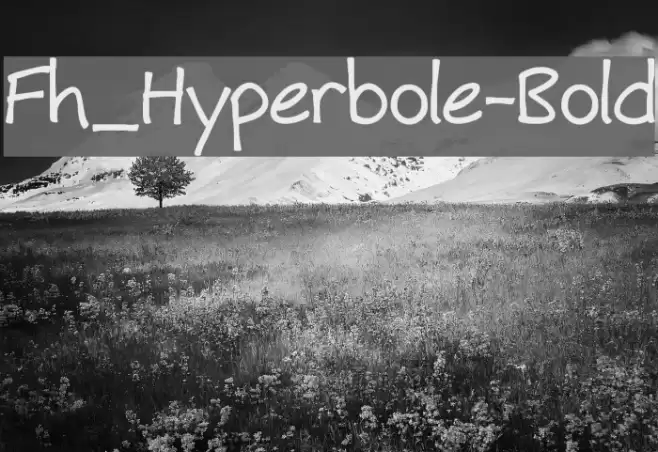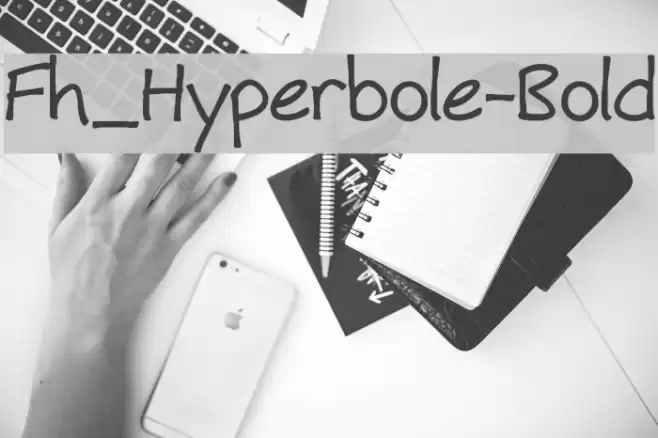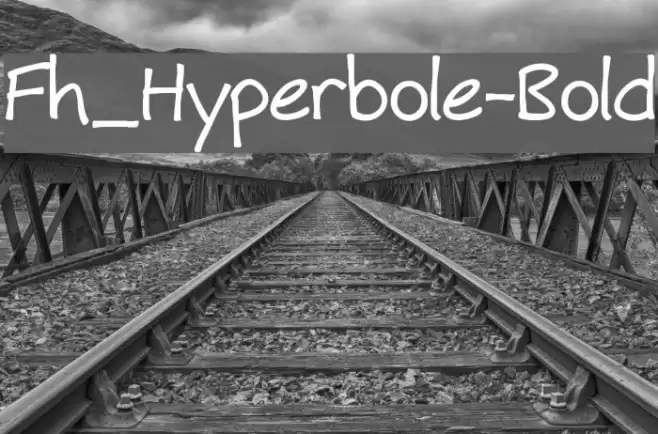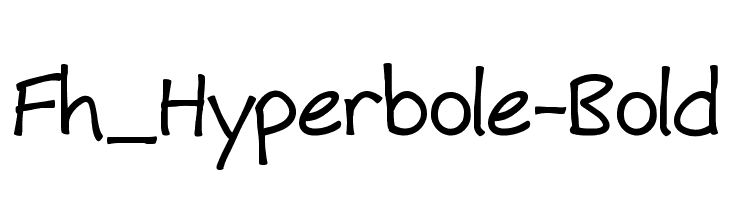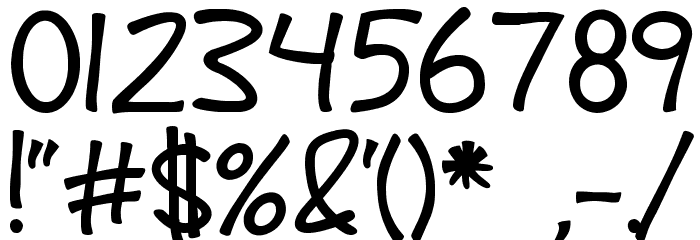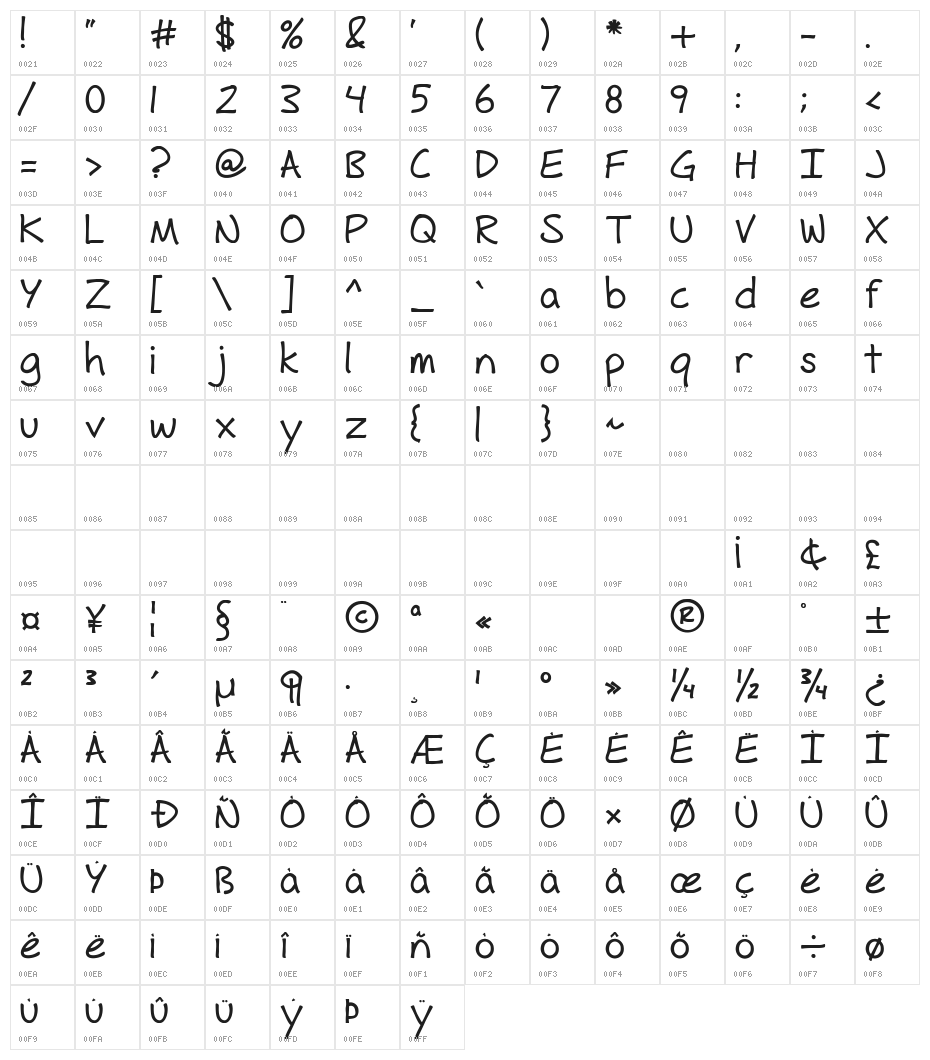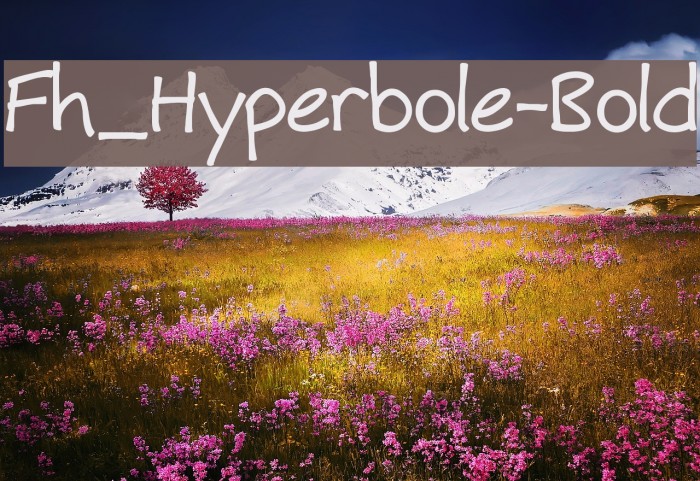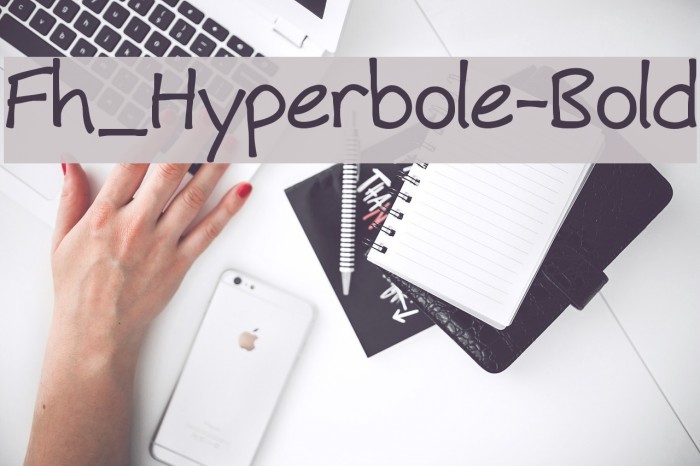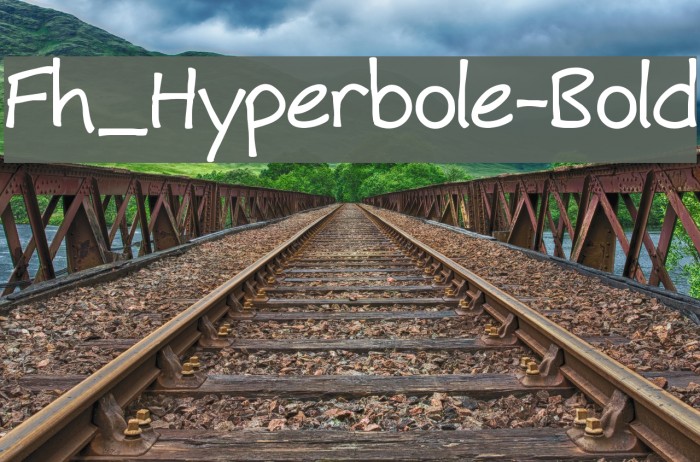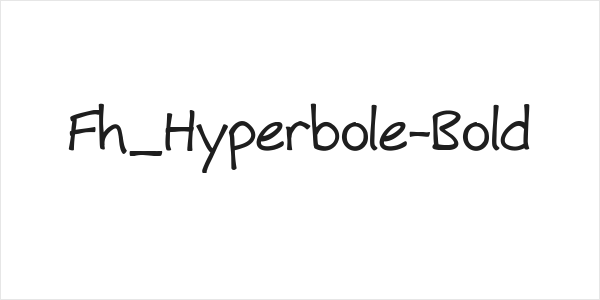
Fh_Hyperbole-Bold Font
Fh_Hyperbole-Bold Description
This font features a playful and informal handwritten style, characterized by its bold and slightly irregular strokes. The letters have a casual, friendly appearance, with rounded edges and a consistent thickness throughout. The uppercase and lowercase letters maintain a cohesive look, while the numerals and special characters blend seamlessly with the overall design. This font's lively and approachable nature makes it suitable for projects that require a personal touch.
A bold, playful handwritten font with rounded edges and consistent strokes from Handwritten fonts.
- Proposed Projects: Ideal for greeting cards, children's books, playful branding, and casual invitations.
- Overall Style: Playful
- Use Case: Headlines, Logos, Informal Text